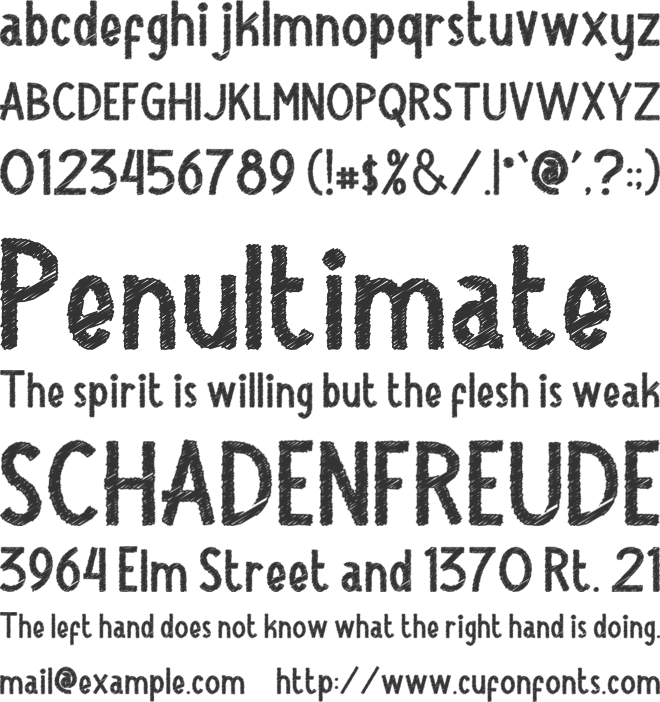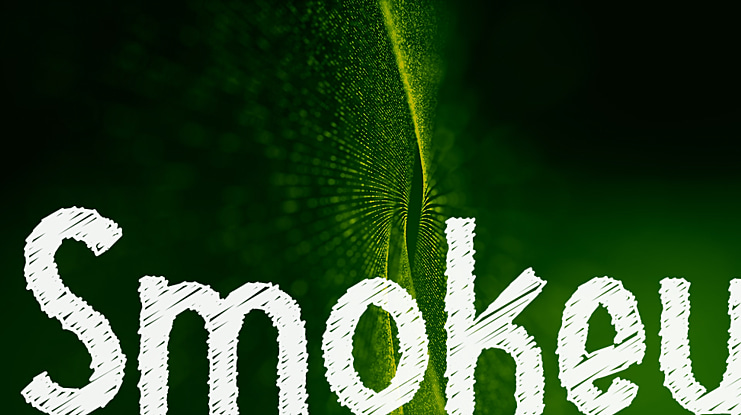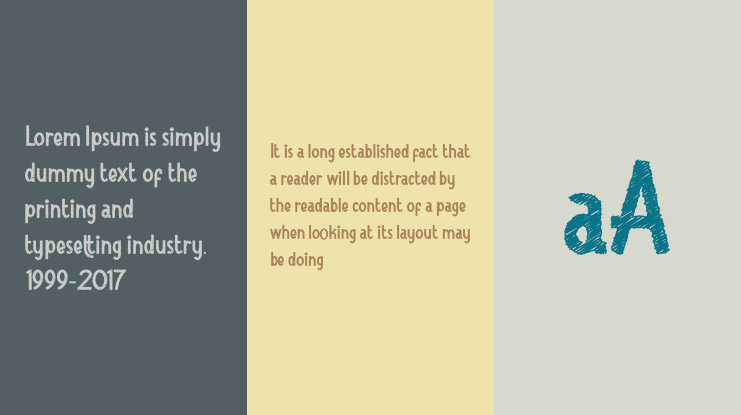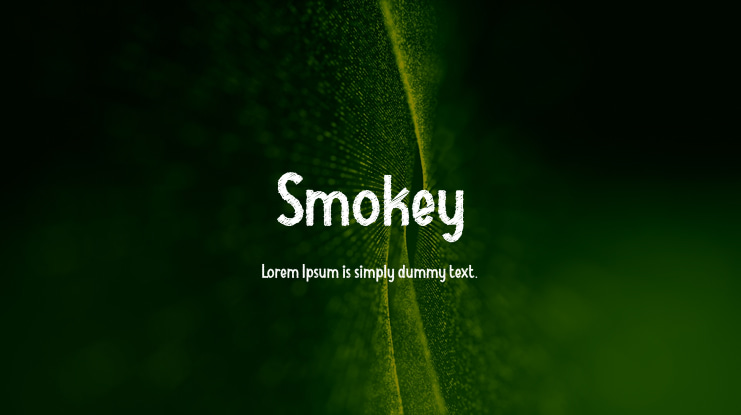
Smokey Font
Introducing our new release, Smokey Modern Display Typeface. This typeset is perfect for brand logo, invitations, greeting card, or even any kind of project. With multilingual feature and style variations, this typeface would further enhance the aestethical aspect of your work.Click our website :https://displaytypefont.com/product/smokey/